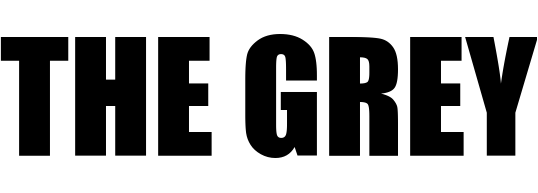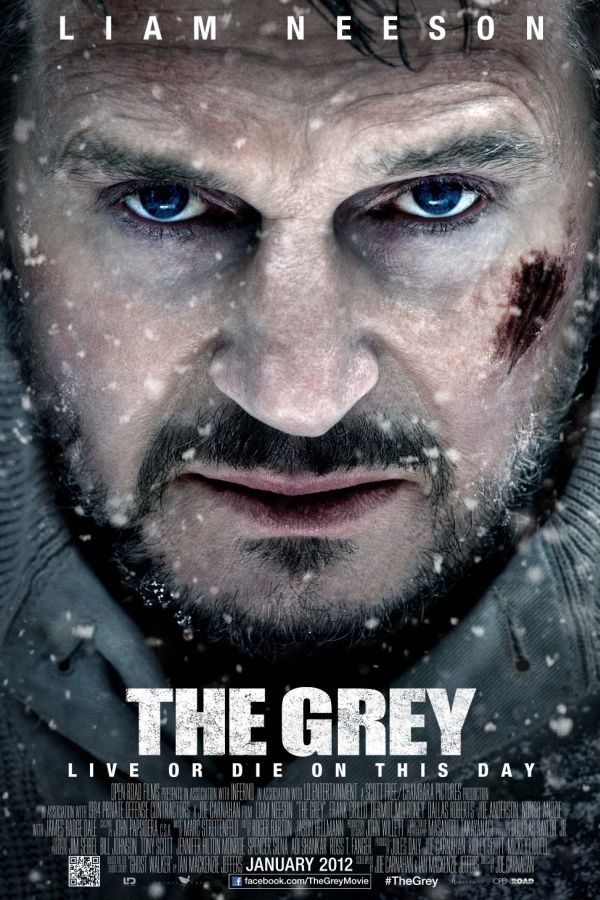
The Grey Font
AdventureThe Grey is a 2011 action-thriller film starring Liam Neeson as John Ottway, a skilled hunter who is tasked with leading a group of oil workers on a journey back to civilization after their plane crashes in the remote Alaskan wilderness amidst treacherous conditions, and a vicious pack of wolves.
This poster's title is probably Impact, modified with a distressed style. More details about Impact typeface can be found here.